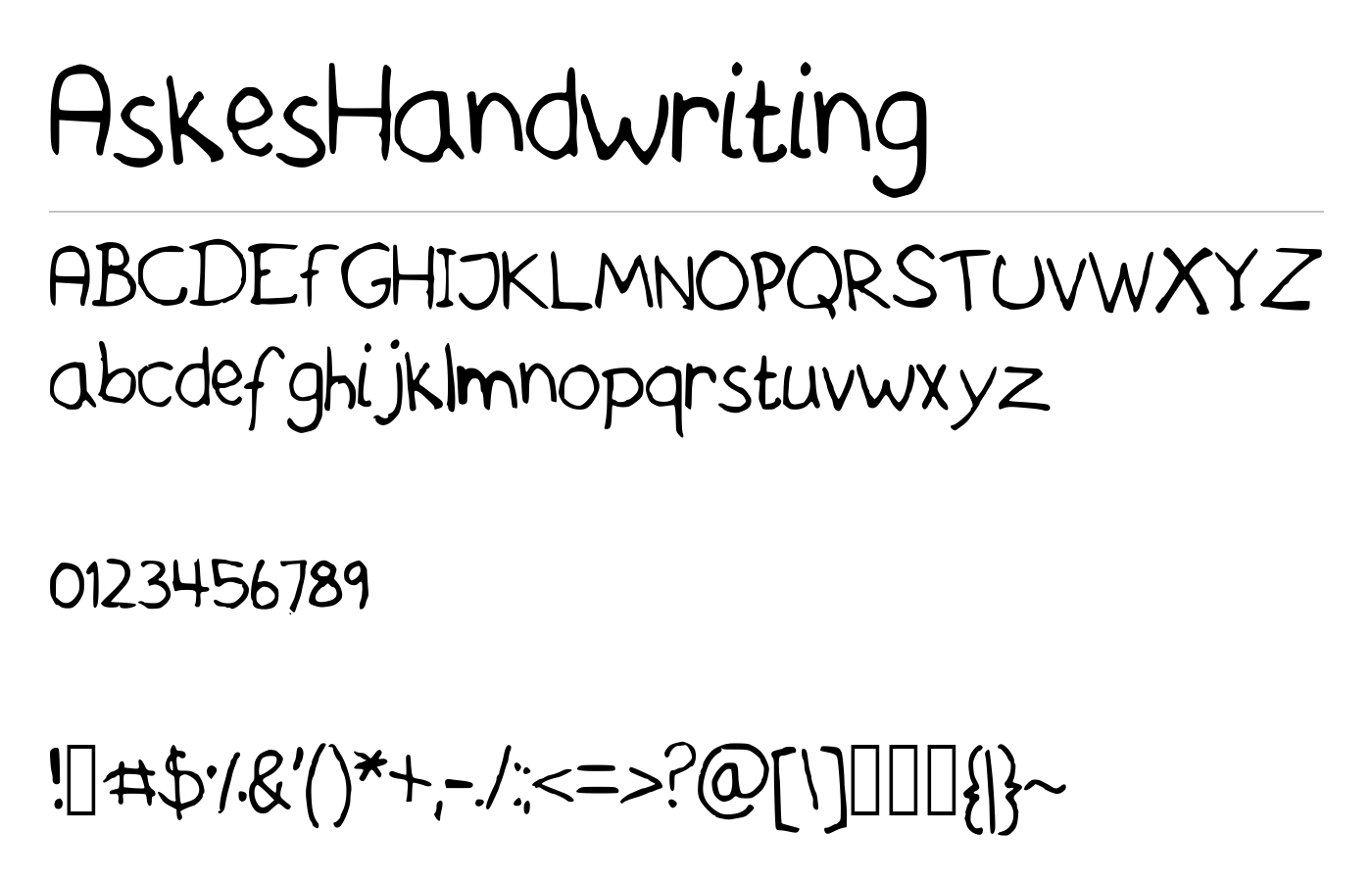
AskesHandwriting is a casual, playful handwritten font with a light weight and a narrow, slightly irregular width that mimics natural pen strokes. Its unique, slightly quirky letterforms offer a friendly and approachable vibe, making it ideal for informal designs, children’s projects, personal branding, or creative digital content where a human touch is desired. This font works best in headings, invitations, or any context where warmth and personality are key.
AskesHandwriting Font
About AskesHandwriting Font